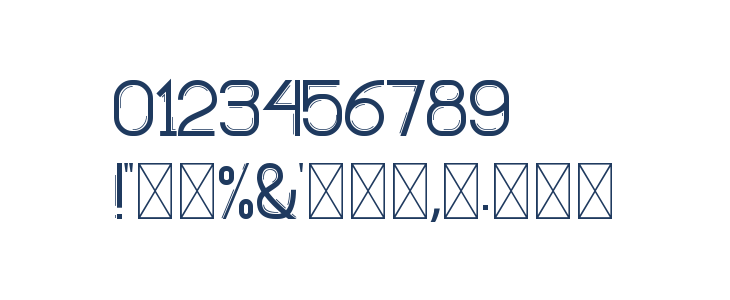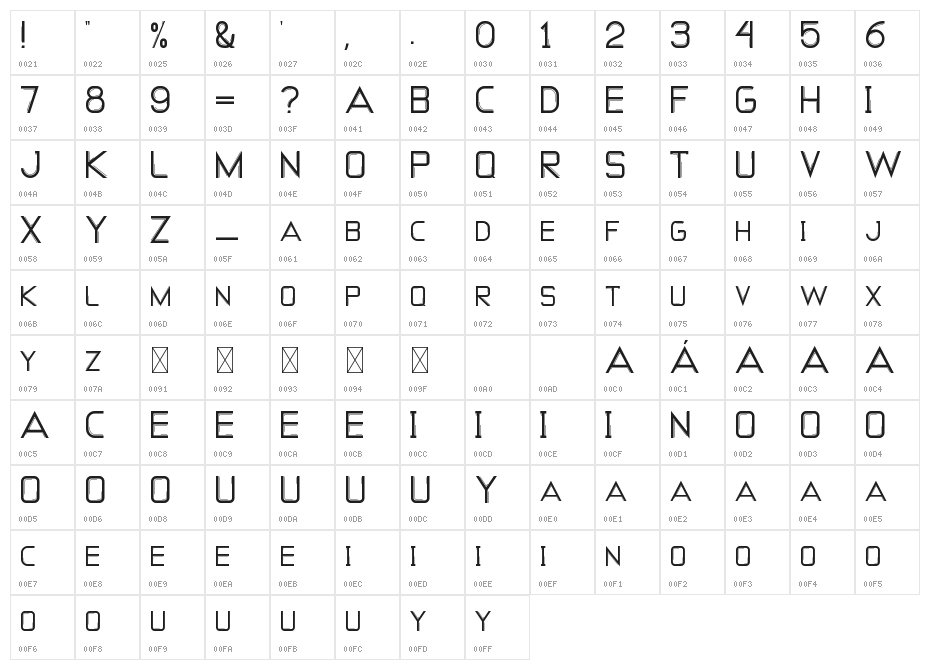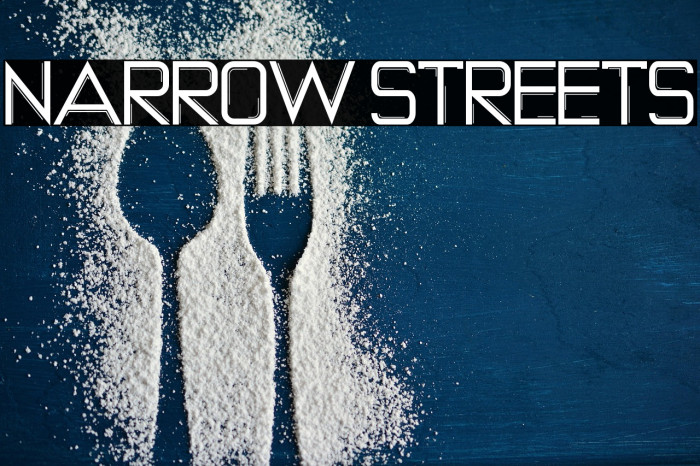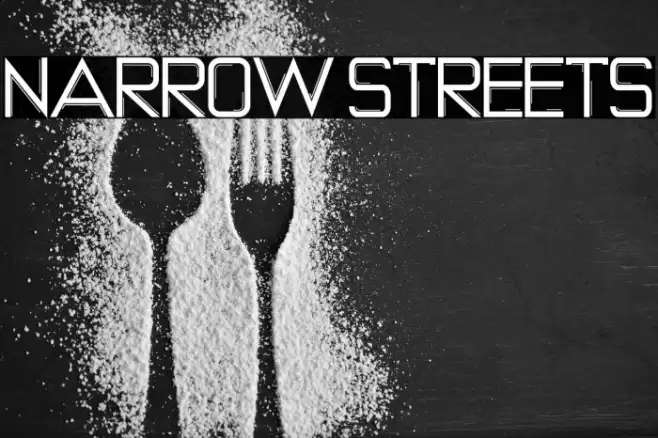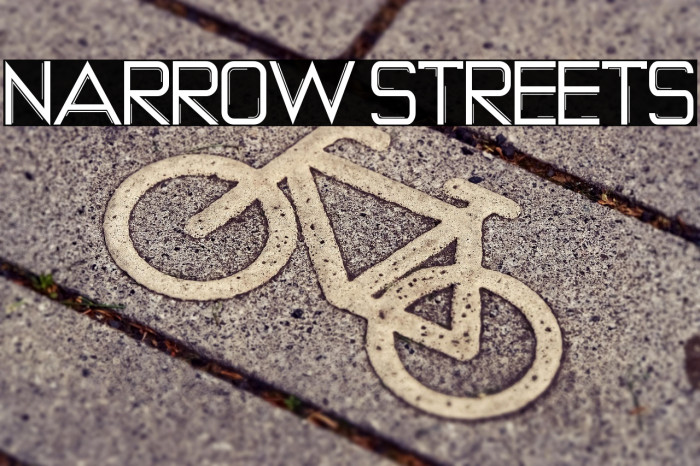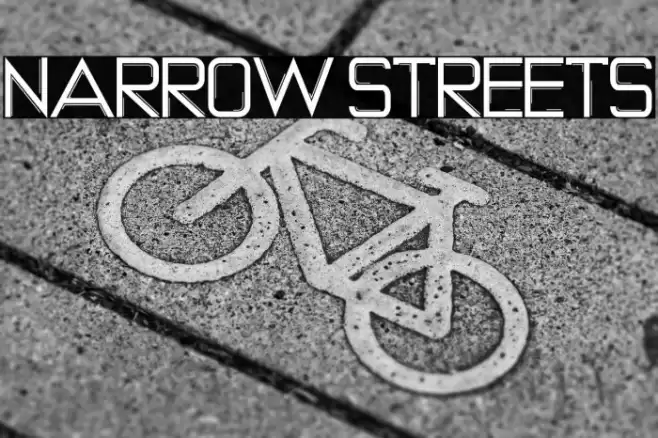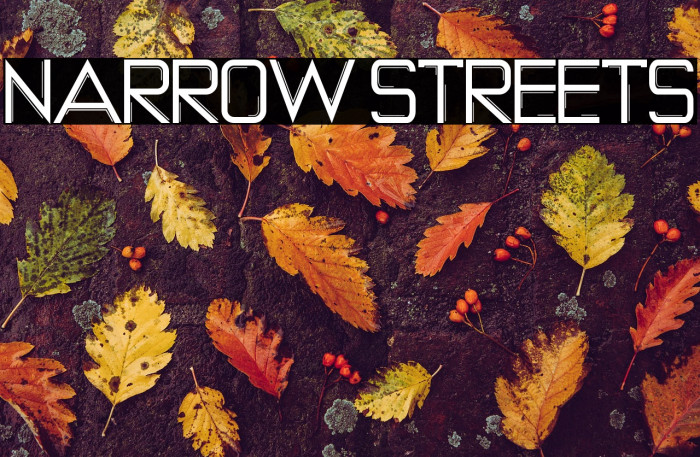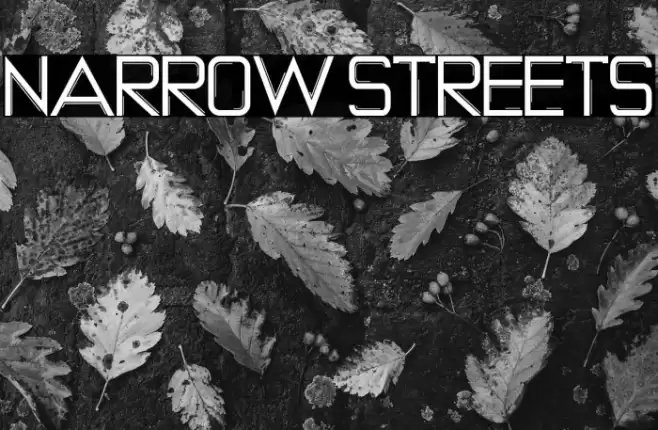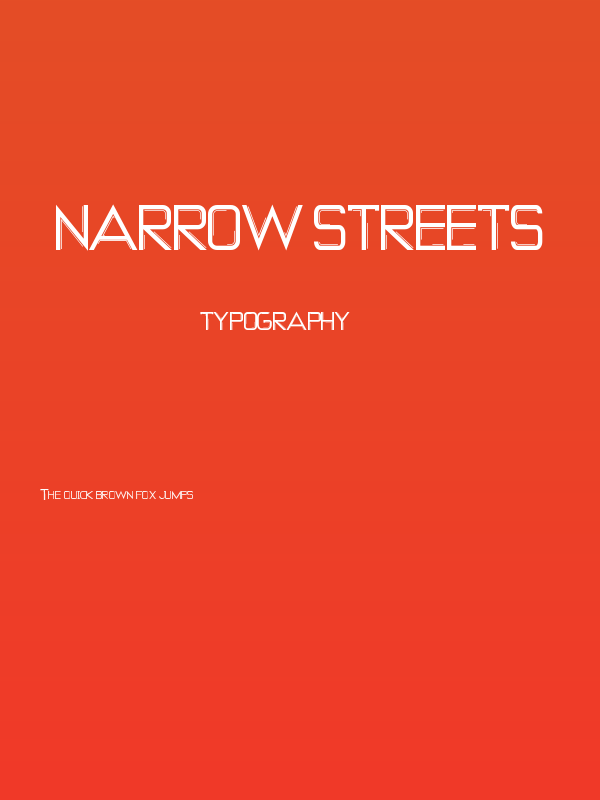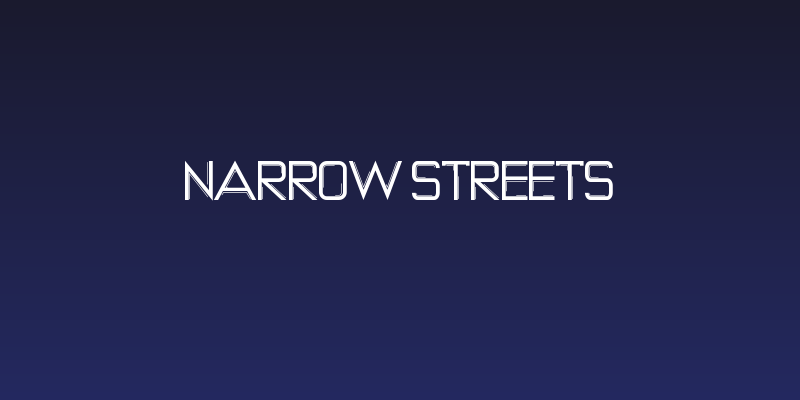
NARROW STREETS Font
NARROW STREETS Description
This font features a modern and geometric design with a distinctively narrow and angular appearance. The characters are constructed with clean, straight lines and sharp edges, giving it a futuristic and technical feel. The uppercase and lowercase letters maintain a consistent style, with a uniform height and width that enhances readability. The numerals are equally stylized, with a sleek and contemporary look. Special characters are designed to match the overall aesthetic, ensuring a cohesive appearance across all text elements. The font's unique style makes it suitable for projects that require a modern and edgy touch.
| Overall Style | Modern, Futuristic |
| Proposed Projects | Ideal for technology branding, modern advertising, futuristic posters, and digital interfaces. |